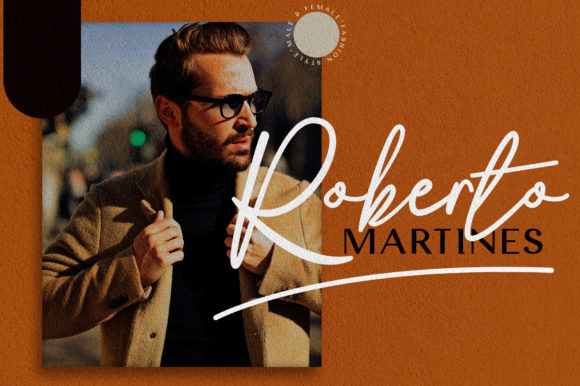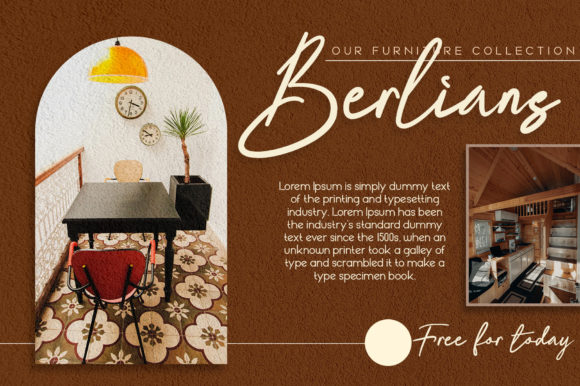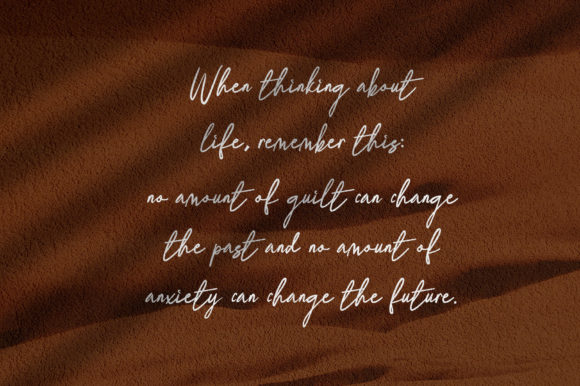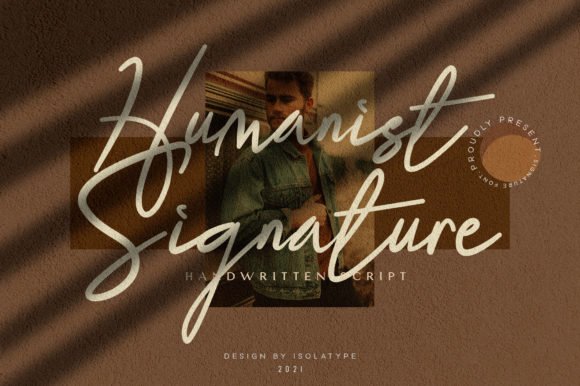
Introduction to Humanist Signature Font
Humanist Signature is an exquisite handwritten font, masterfully designed to become a true favorite.
Key Features of Humanist Signature Font
Why Choose Humanist Signature Font?
Humanist Signature Font offers exceptional quality and versatility, making it a valuable addition to your design toolkit. Whether you’re creating for personal projects or commercial use, Humanist Signature Font delivers professional results.